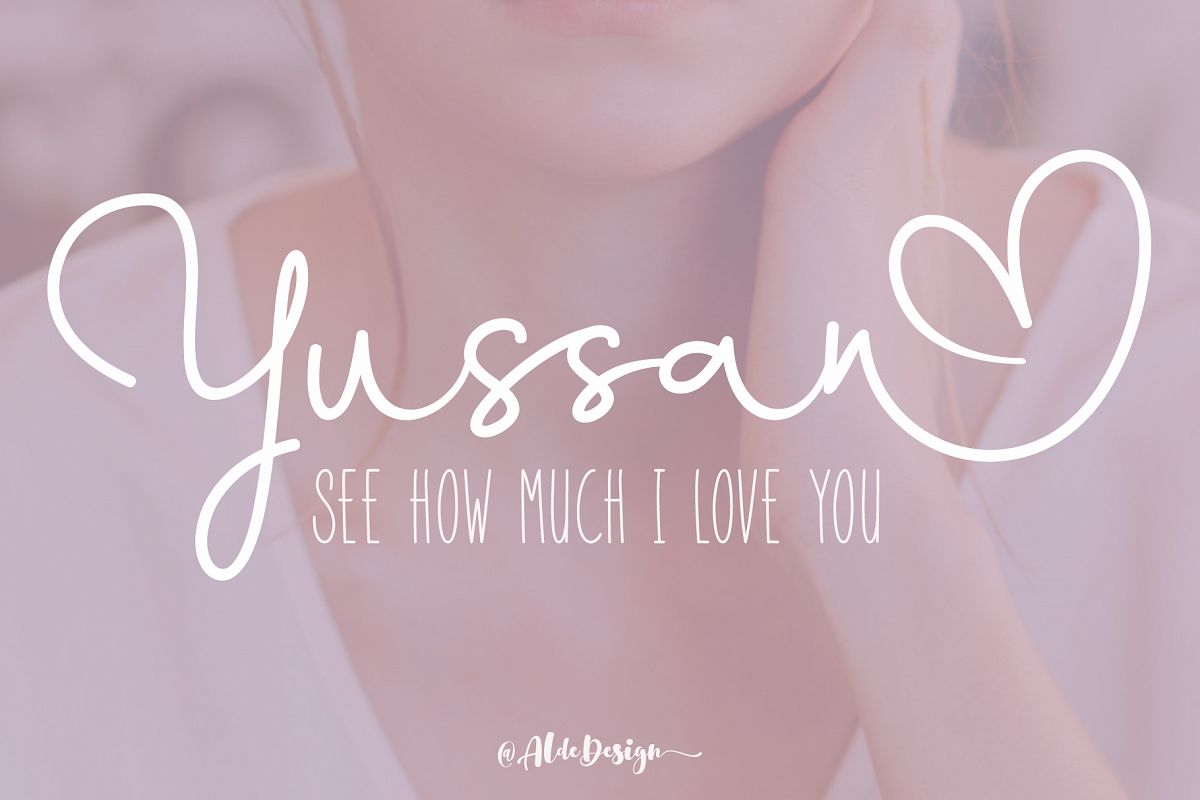
Yussan Script
Yussan is a light and charming handwritten font with an incredible feel. It will turn any design project into a true stand out!
Yussan is the great choice for watermark on photography, signature or signature logo design, album cover, business card, quotes, and many other design project.
• Stylish handwritten style
• Special Ligatures